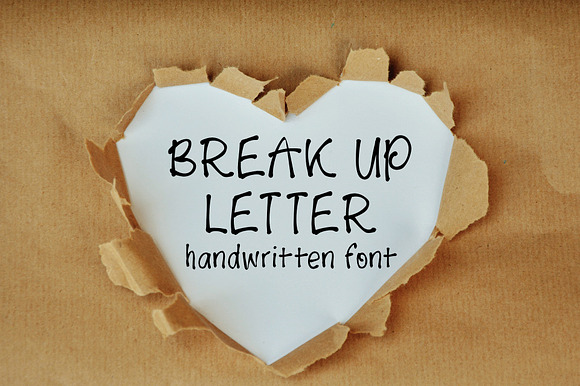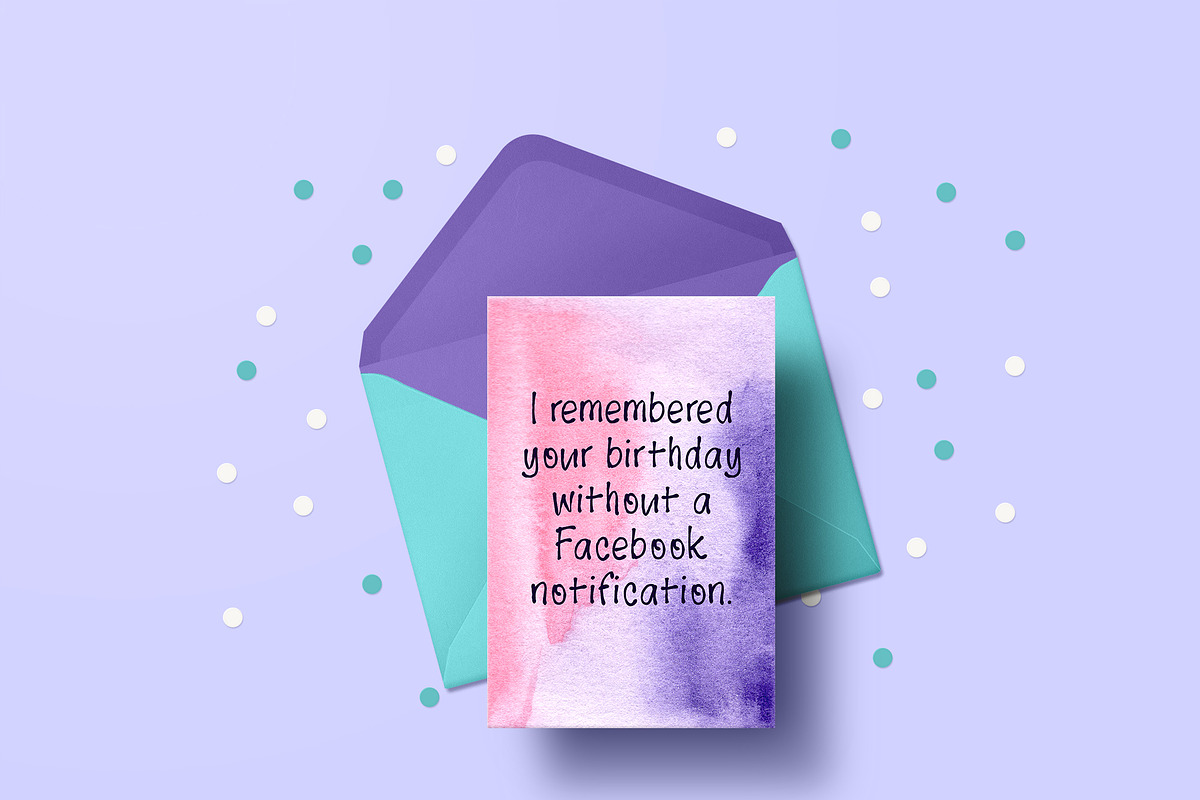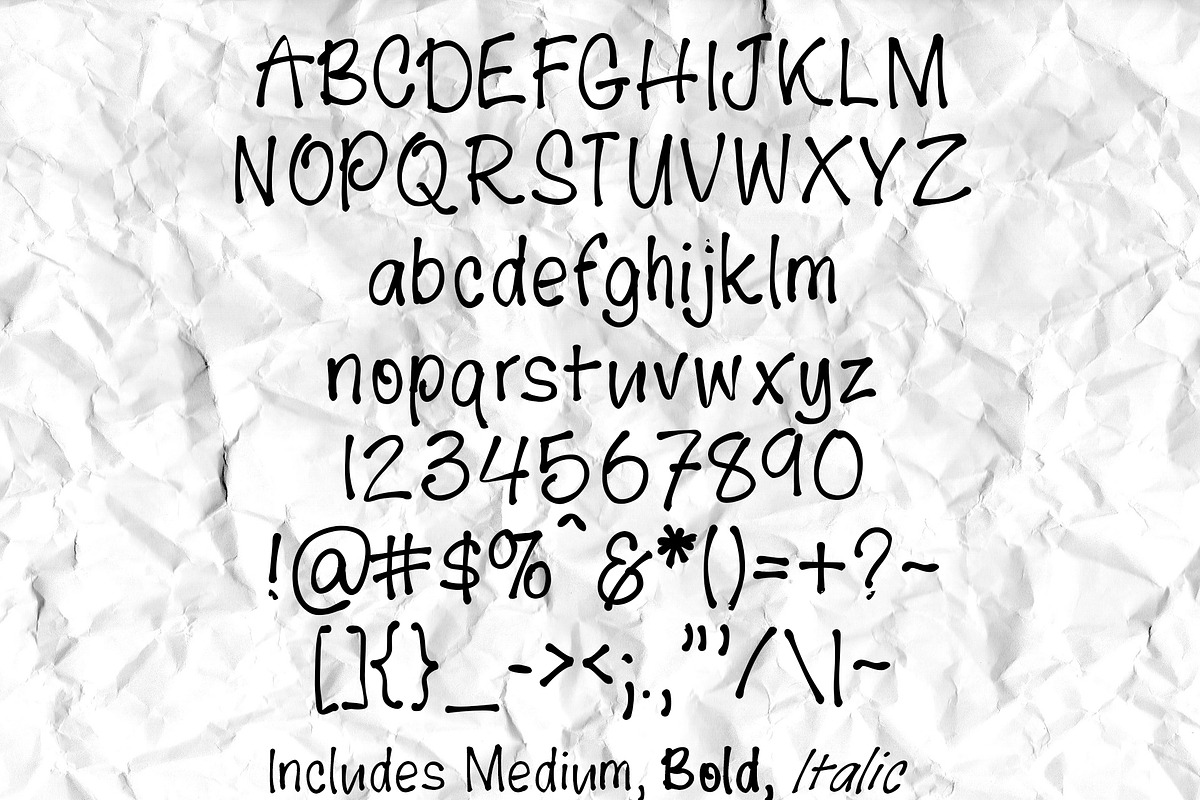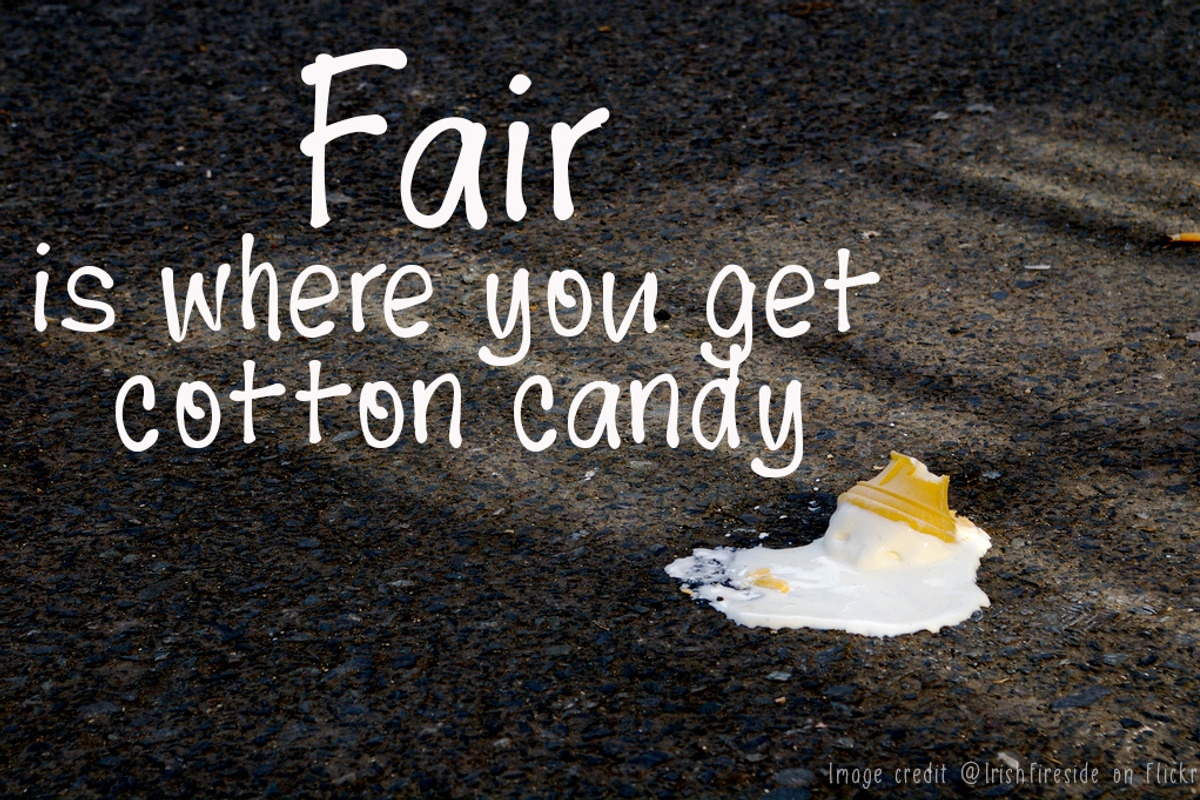
Break Up Letter font
Break Up Letter is a hand-lettered font, great for adding a quirky, handmade feel to your projects. This font contains uppercase, lowercase, numbers, and punctuation.
Break Up Letter font by Alexis Gentry fits naturally into Branding, posters, packaging, typography.